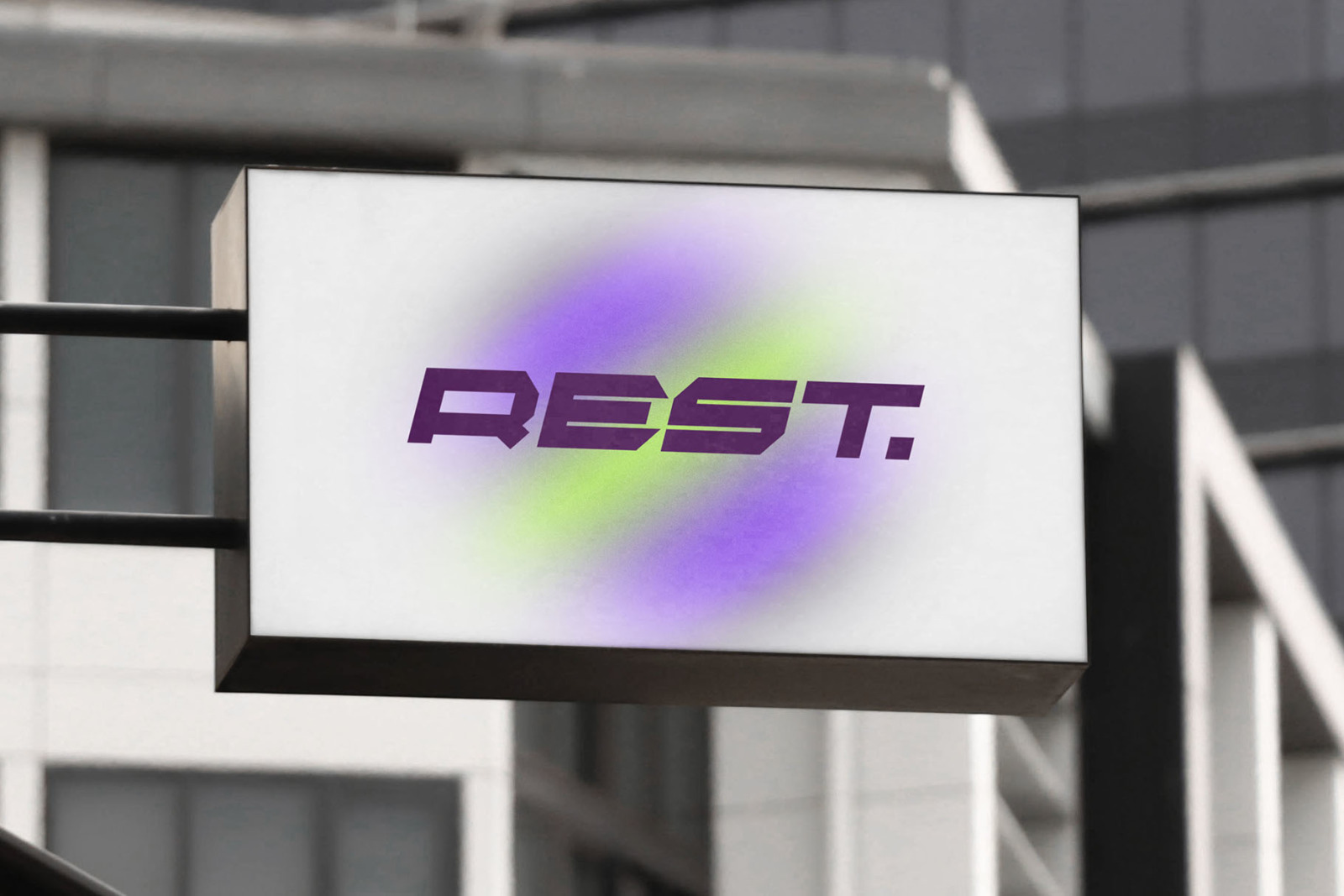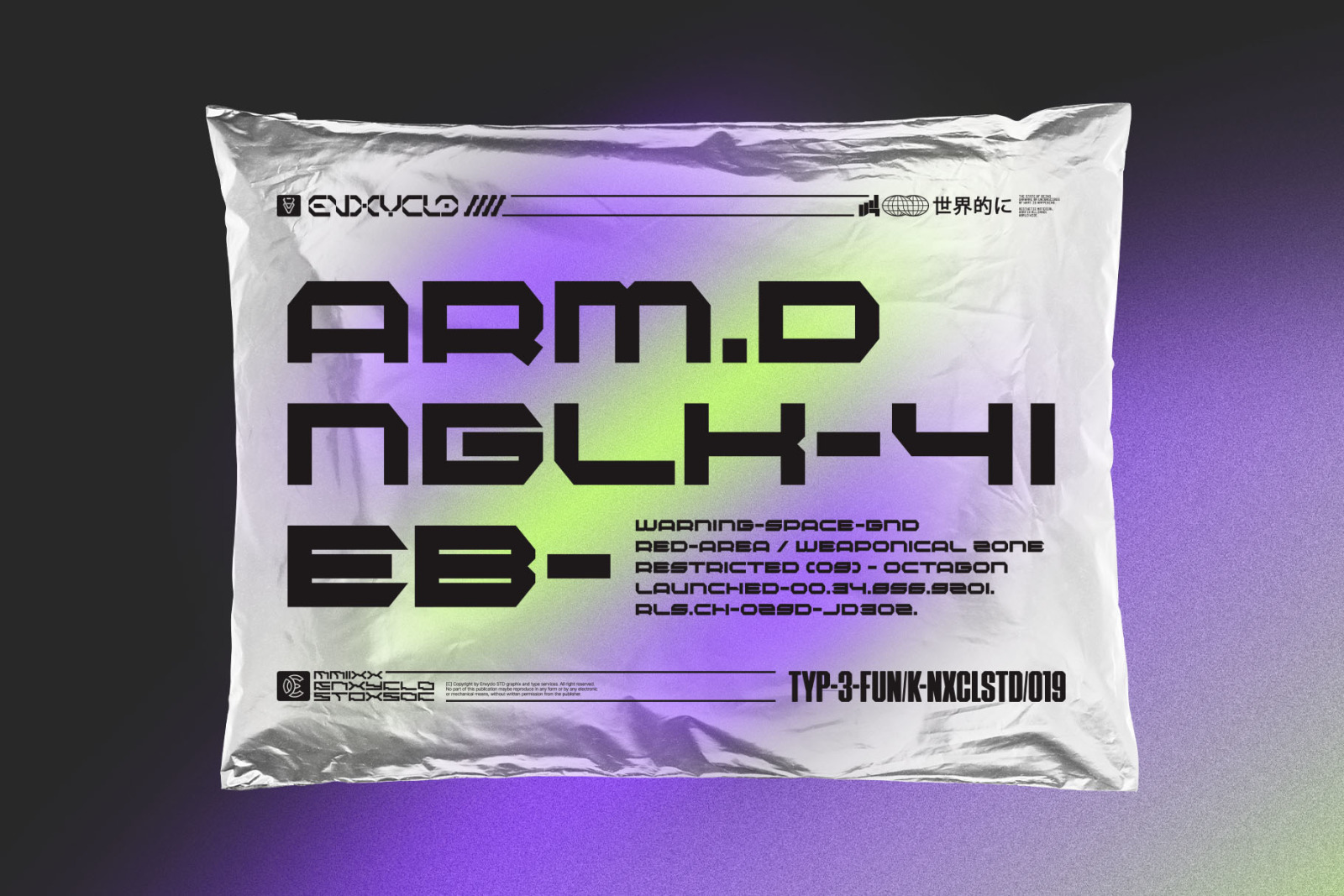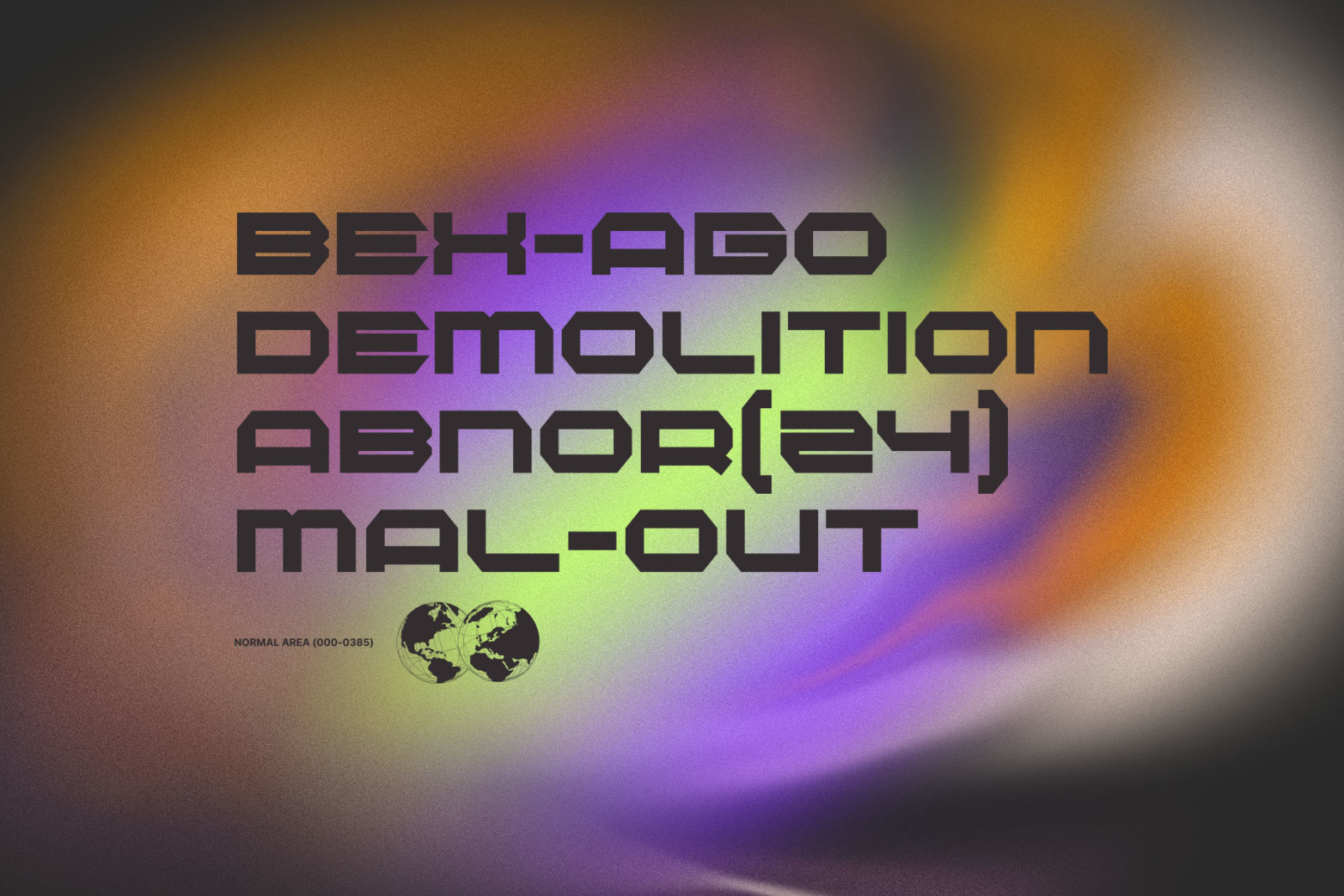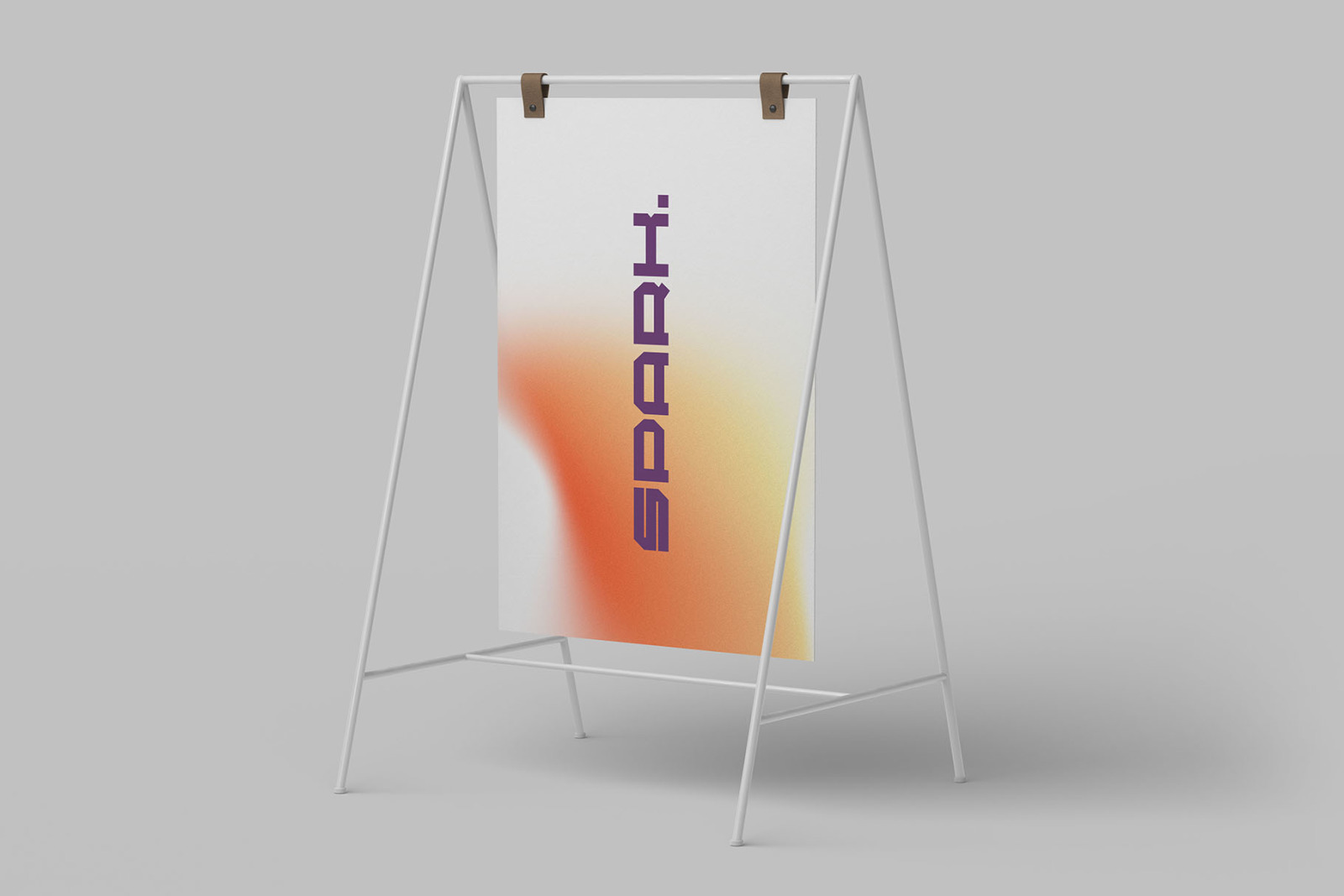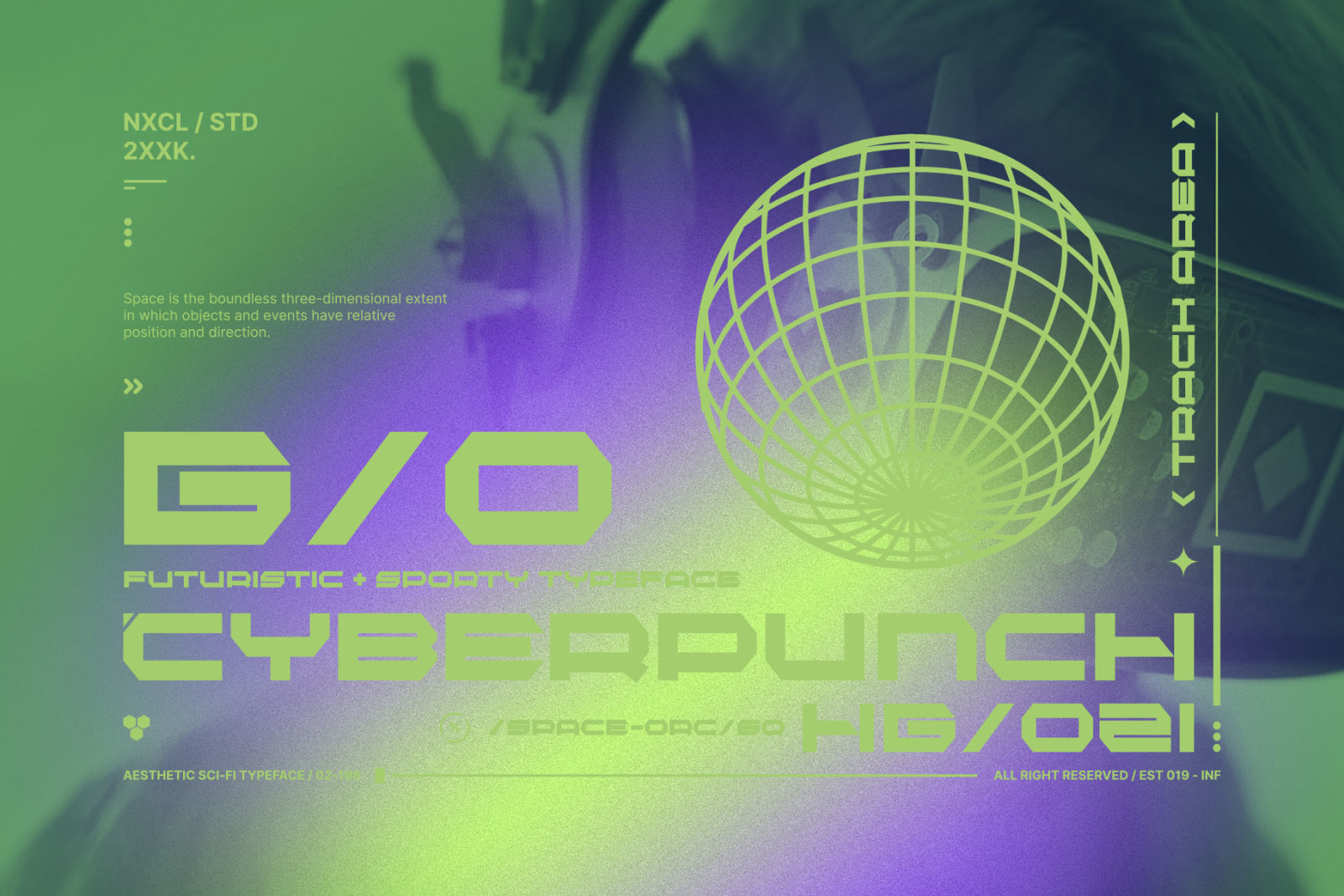
BEXAGO - Futuristic Cyberpunk Sci-Fi Modern Display Font
BEXAGO is futuristic display font. The design of typeface will make your project more powerful and inspiring. It is perfect for headline, billboard, magazines, website, titles, poster, branding, thumbnail, t-shirt design, street wear design, and creative logos, or any project that needs futuristic touch. With this beautiful futuristic display font, absolutely you can make your project stand out from the rest. See the previews above to get some inspiration on how to use them.
- 3 Styles: Regular, Outline & Slant
- Contains 333 Glyphs for Each Style (Total: 999 Glyphs)
- Uppercase, Numeral, Punctuation & Symbol